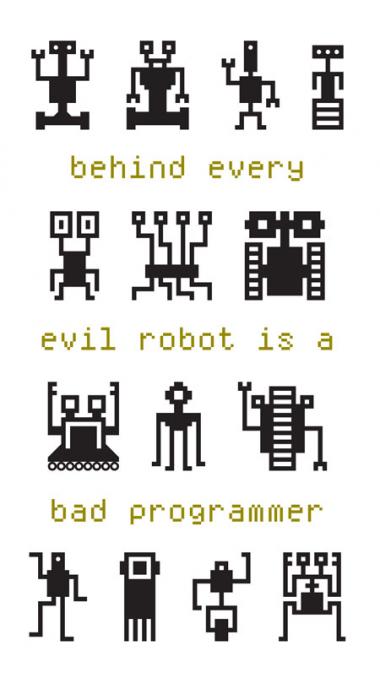
Dingbots and Monsters XL
A completely new creation based on my original Dingbot and Monsters. Stylized robots and monsters. Larger grid. All new robots. My entry for the illustration competition.
My sample image.
this is unique!
Love the quote in the sample image!
I added a few more dingbots for a total of 77.
does the rule limit us till 48 letters?
The rules say that you can only make your characters 48 bricks high, but I don't see any rules about the number of letters...
Nope, there are no rules about how many symbols you may make. For example neurone errors entries have 75 and 100 glyphs.
And by the way, cool font. So many unique robots.
Don’t see an evil one throughout. Wonderful! 10/10
p.s. these could all be animated – just look at ’em dance! :)
Thanks everyone. They are fun to make. I may have to do an animated version. That's a great idea.
FYI: My daughter says the good robots are the ones waving. The rest are evil.
Okay. So numbers 0-9 are now the same robot in different positions. I'll post an animated gif when I get a chance.
Animated Dingbots! 0-9 in motion.
LOL! Awesome.
I love many of these! Good Luck!
Coolio!